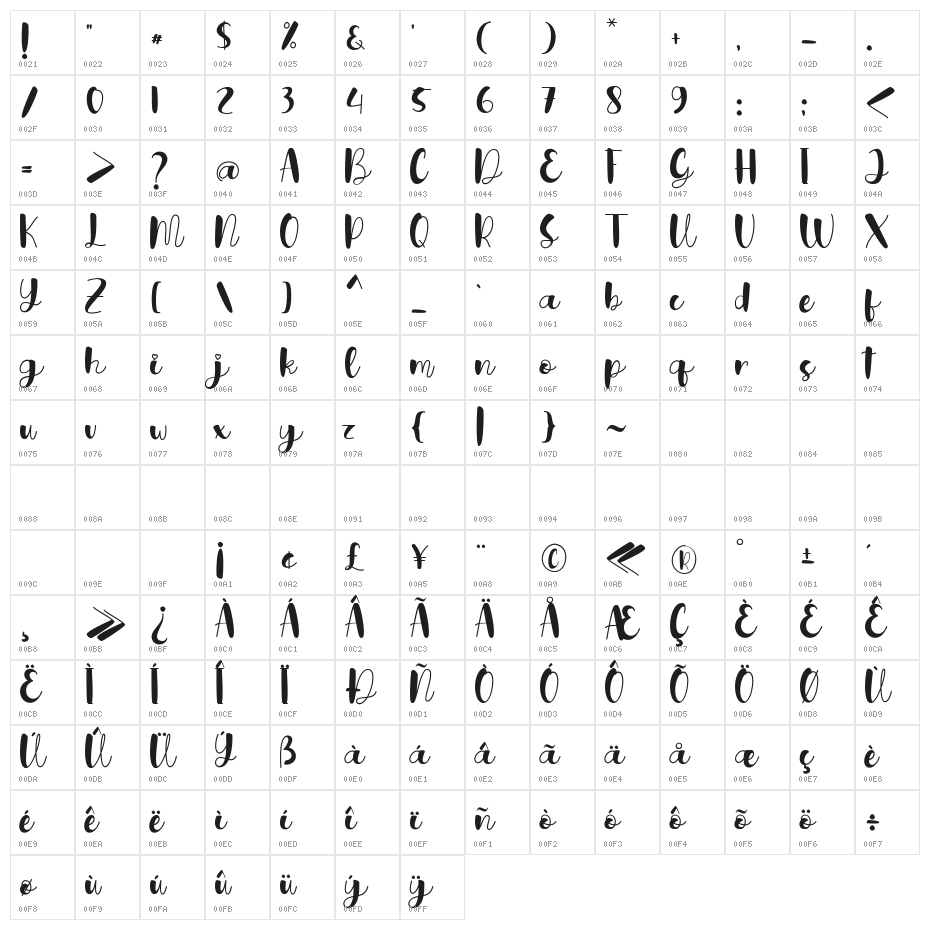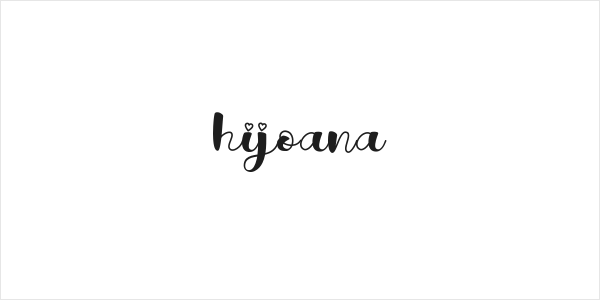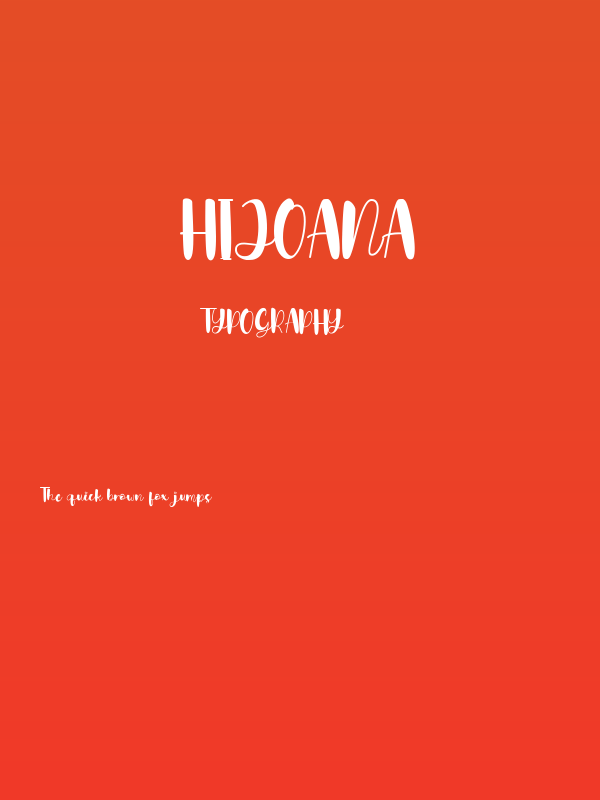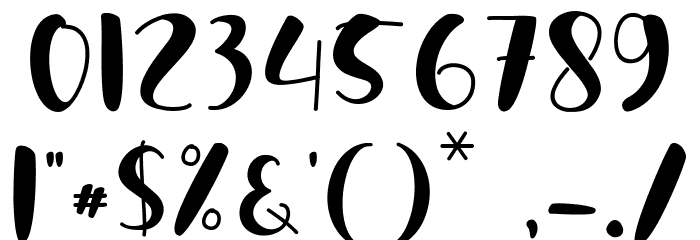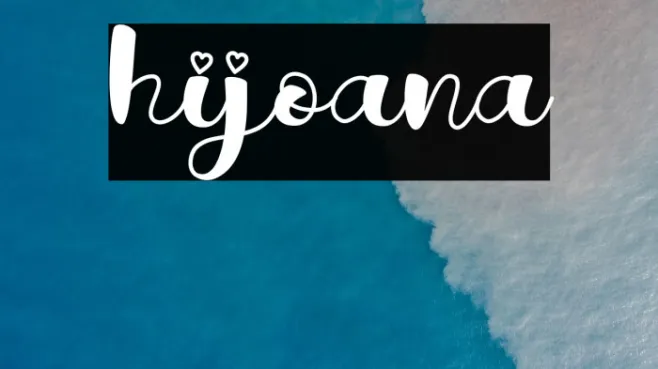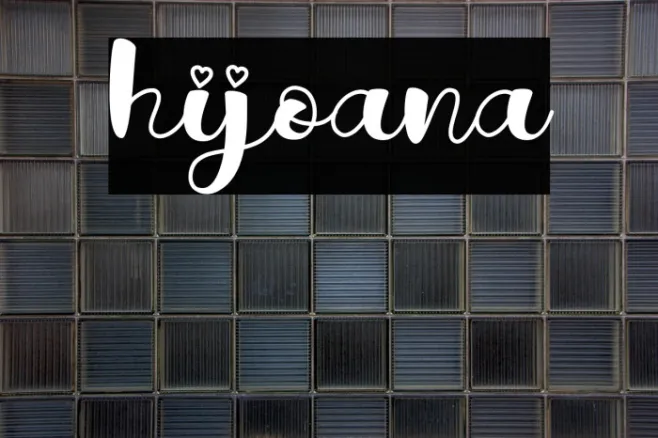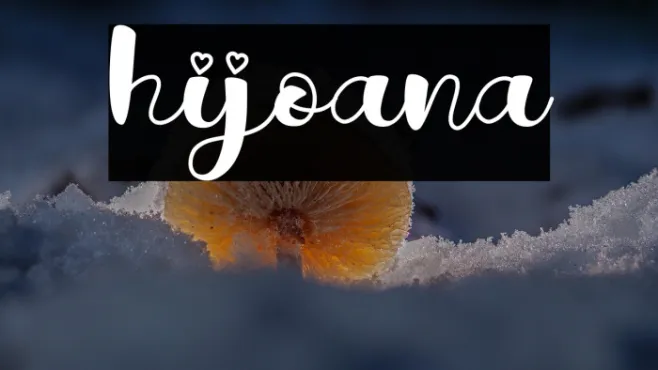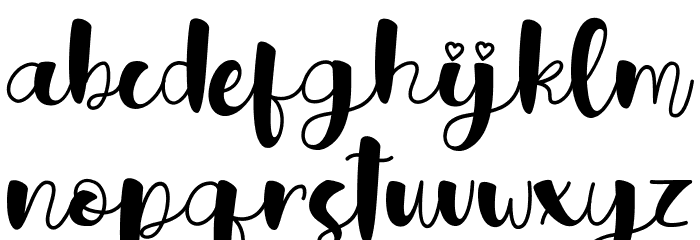
hijoana Font
hijoana Description
This playful and energetic font features a handwritten style with a mix of bold and flowing strokes. The uppercase letters are characterized by a combination of thick and thin lines, creating a dynamic and lively appearance. The lowercase letters maintain a consistent flow, with some characters like 'j' and 'i' adorned with heart-shaped dots, adding a whimsical touch. The numerals are bold and slightly slanted, complementing the overall casual and friendly vibe of the font. Special characters are creatively designed, maintaining the font's playful essence. This font is perfect for projects that require a personal and informal touch, such as greeting cards, invitations, or playful branding.
| Overall Style | Playful, Energetic, Whimsical |